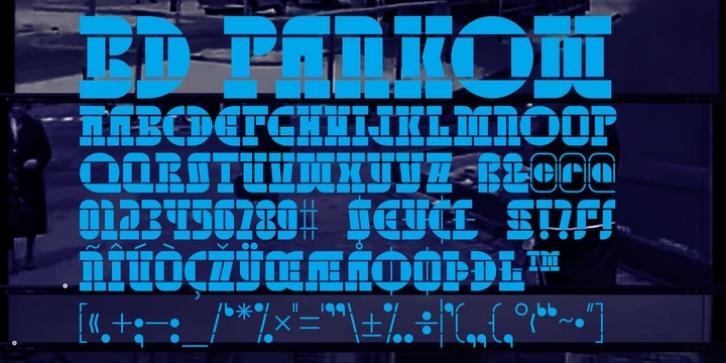
BD Pankow is inspired and designed during a stay in Berlin. It's an uppercase alphabet with alternates. Bold, rock-solid, modern and ideal for branding and titling.